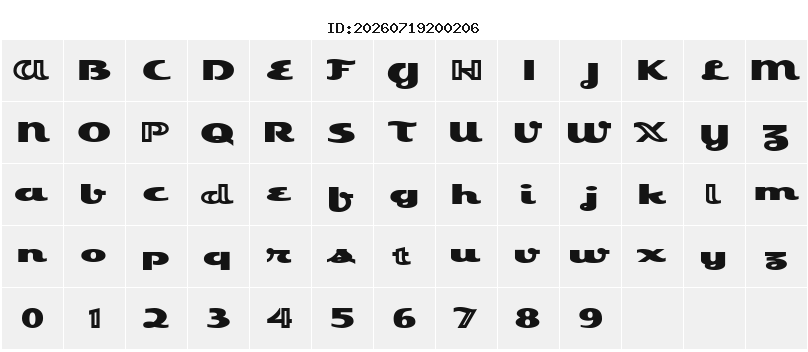
Esquivel Trial Preview
• Font Name: Esquivel Trial
• Font Style: Trial
• Full Font Name: Esquivel Trial
• PostScript Name: EsquivelTrial
About Esquivel Trial.ttf
Esquivel Trial.ttf is a modern, elegant sans-serif font designed for ultimate readability and visual harmony. Perfect for branding, headlines, web design, and print materials.